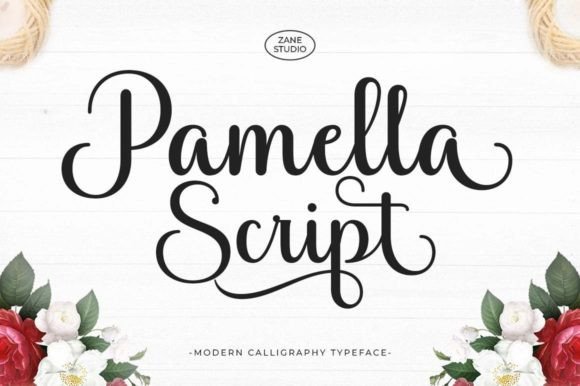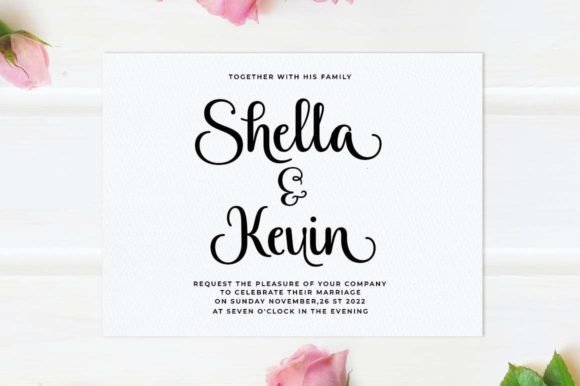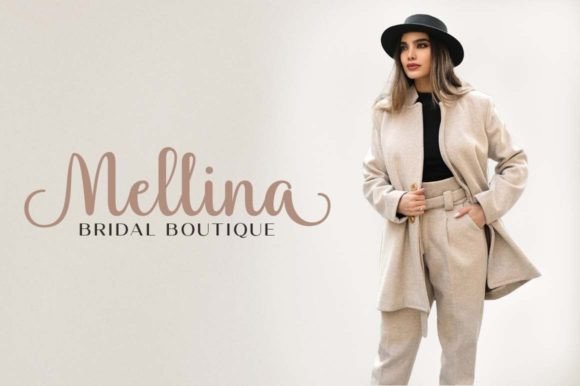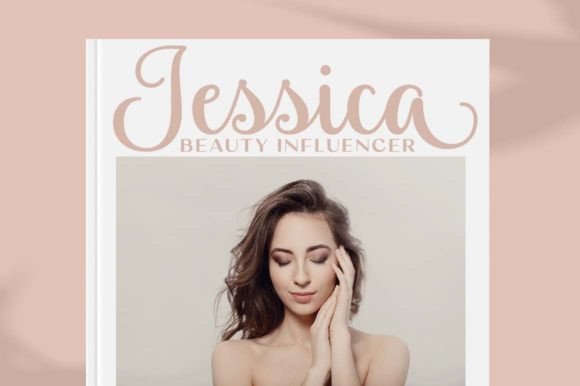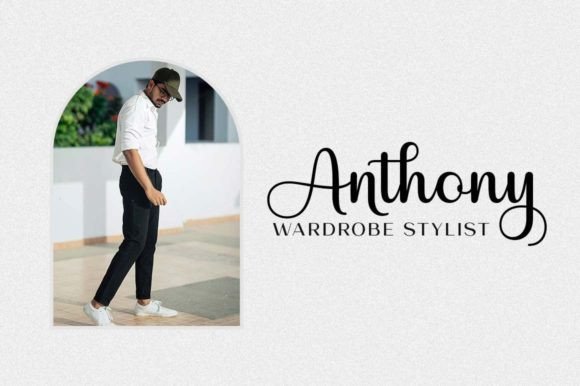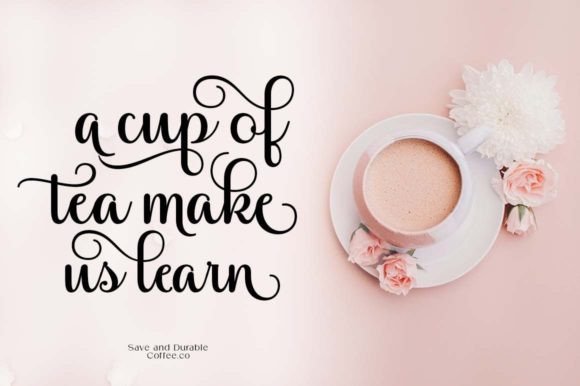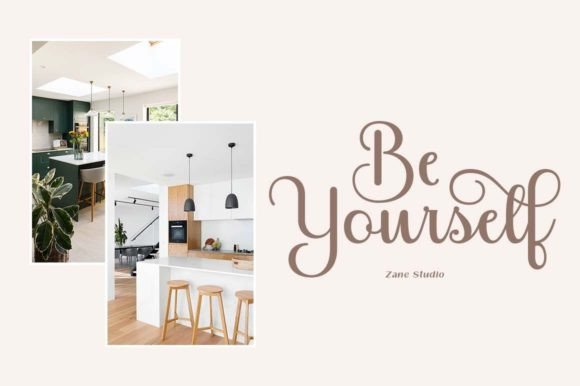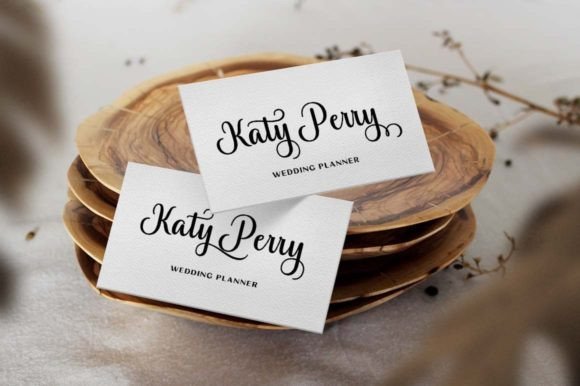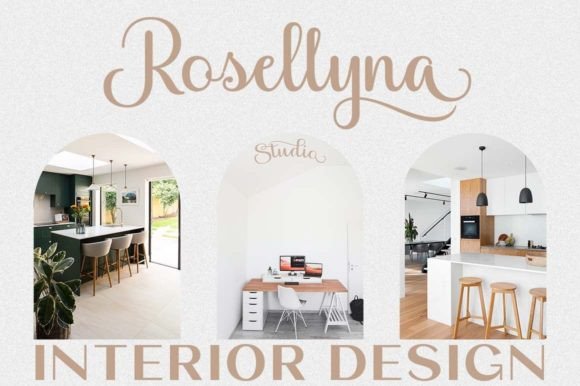
Pamella Script Font
About Pamella Script Font
“Pamella Script” is a font that encapsulates the essence of romance, elegance, and fun. With its delicate and flowing strokes, this script font embodies a sense of sophistication and charm, making it a perfect choice for a wide range of creative applications. Whether you’re designing logos, wedding invitations, t-shirts, letterheads, signage, posters, or any other branding materials, “Pamella Script” adds a touch of grace and personality to your projects.
The font’s romantic and elegant style makes it particularly well-suited for occasions that require a sense of intimacy and celebration, such as weddings and special events. Its playful and fun elements also make it versatile enough for casual and lighthearted designs, adding a sense of joy and positivity to your creations.
One of the standout features of “Pamella Script” is its PUA encoding, which grants you easy access to all glyphs and swashes. This accessibility allows you to customize your designs with a variety of decorative elements, ensuring that your projects are uniquely tailored to your creative vision. Whether you want to add stylish swashes or experiment with alternate characters, the font’s versatility empowers you to craft personalized and eye-catching designs effortlessly.
Whether you’re a professional designer or someone exploring their creative talents, “Pamella Script” offers endless possibilities. Its adaptability across different mediums, from digital platforms to physical merchandise, makes it a valuable asset for anyone looking to make a lasting impression. By incorporating this font into your projects, you infuse them with a sense of elegance, romance, and fun, creating visually appealing designs that captivate and engage your audience.
So, unleash your creativity and explore the enchanting world of “Pamella Script.” With its romantic, elegant, and fun qualities, this font will undoubtedly add a touch of magic to your designs, making them memorable and delightful to behold. Whether you’re crafting invitations, branding materials, or any creative work, “Pamella Script” is your key to creating captivating and visually stunning masterpieces.